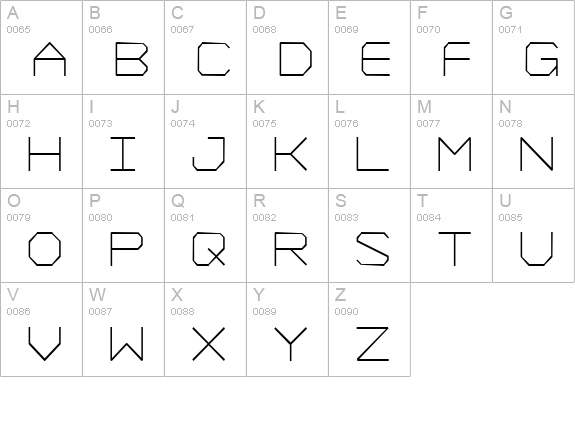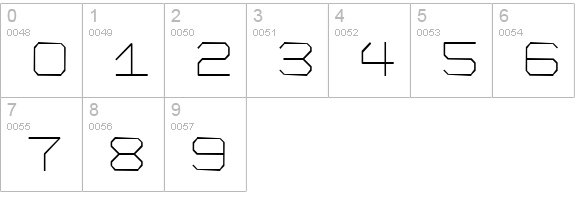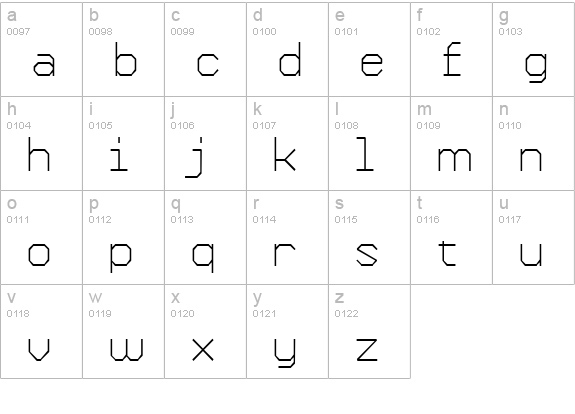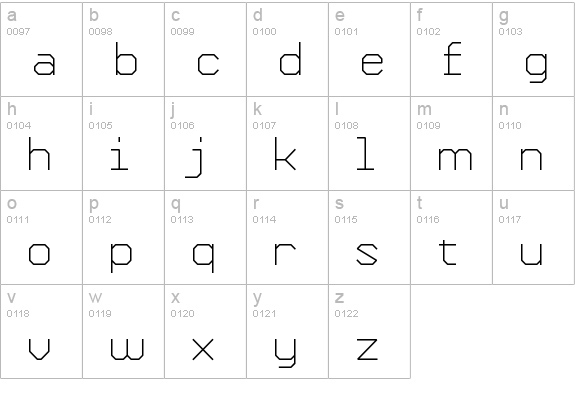
Formation Light is a refined, elegant variant in the Formation typeface family \xE2\x80\x94 well suited to elegant body text, refined sub-headings, and luxury branding.
Formation Light is a sleek and modern sans-serif font that exudes sophistication and elegance. With its clean lines and balanced letterforms, this typeface is perfect for adding a touch of refinement to any design project. The light weight of Formation Light lends a delicate and airy quality to your text, making it ideal for conveying a sense of grace and sophistication. What makes Formation Light even more appealing is that it is completely free to download at FontsMarket.com. Whether you're working on a branding project, a website design, or any other creative endeavor, Formation Light is a versatile font that will elevate your work to the next level. Download this exquisite typeface today and add a touch of class to your designs.